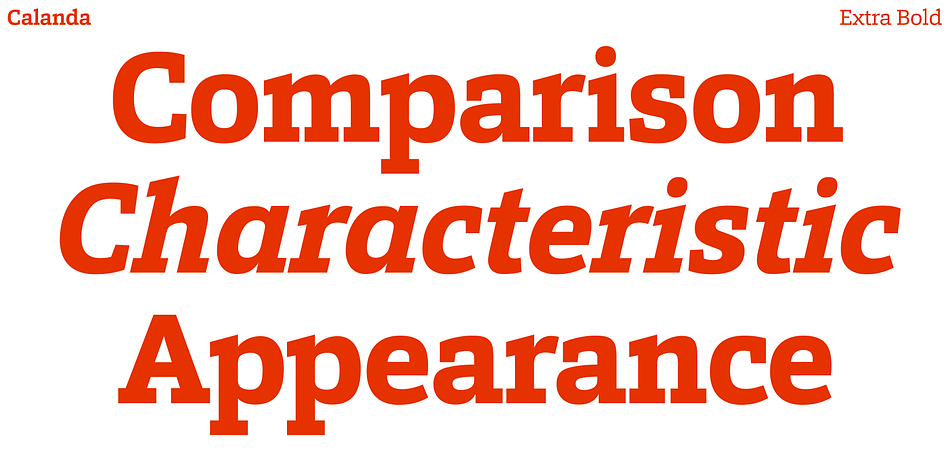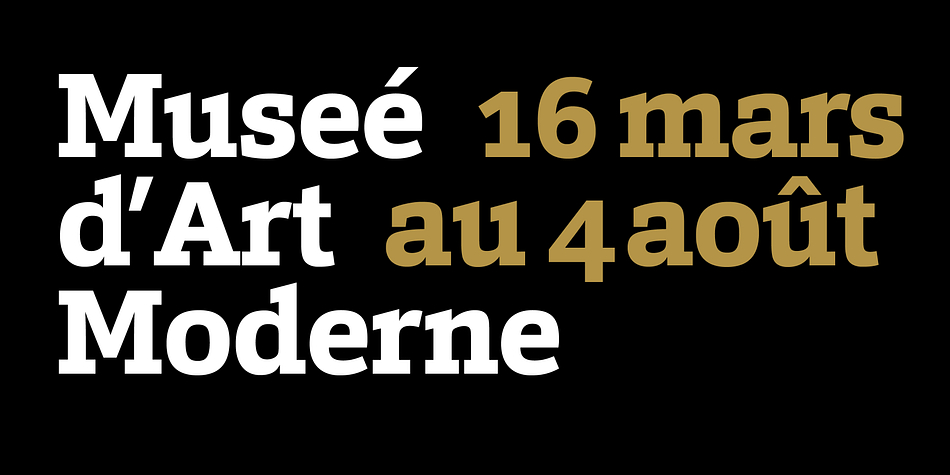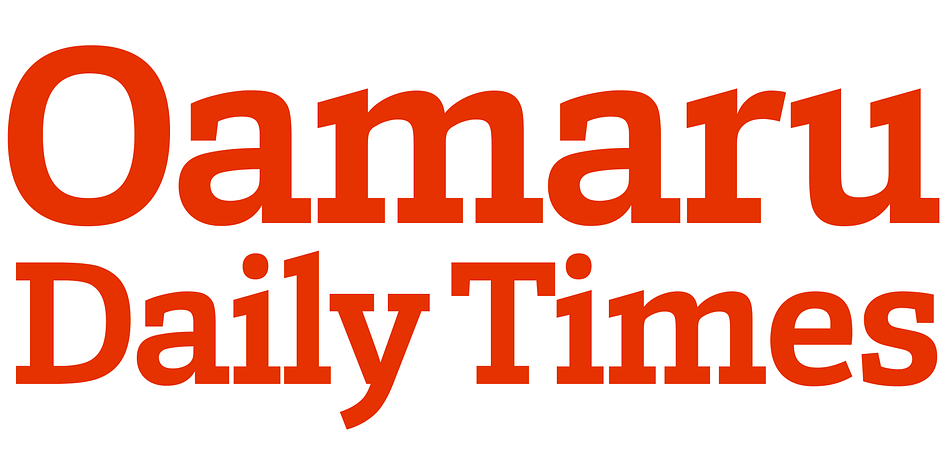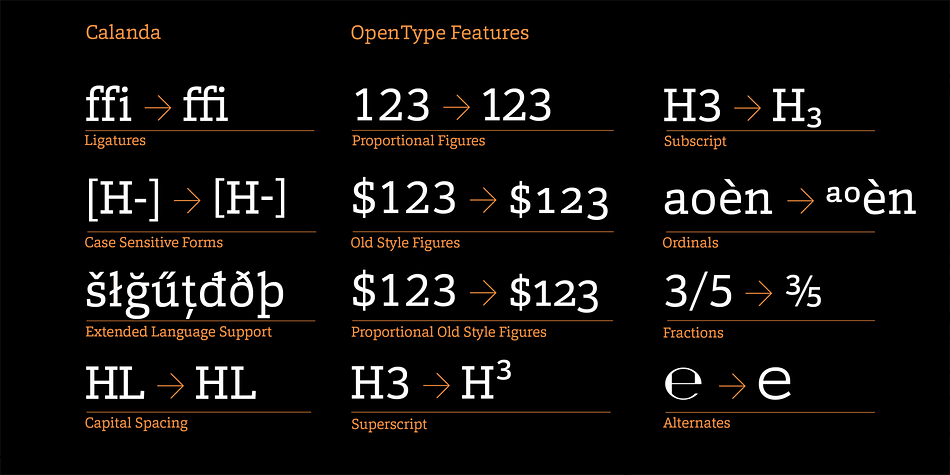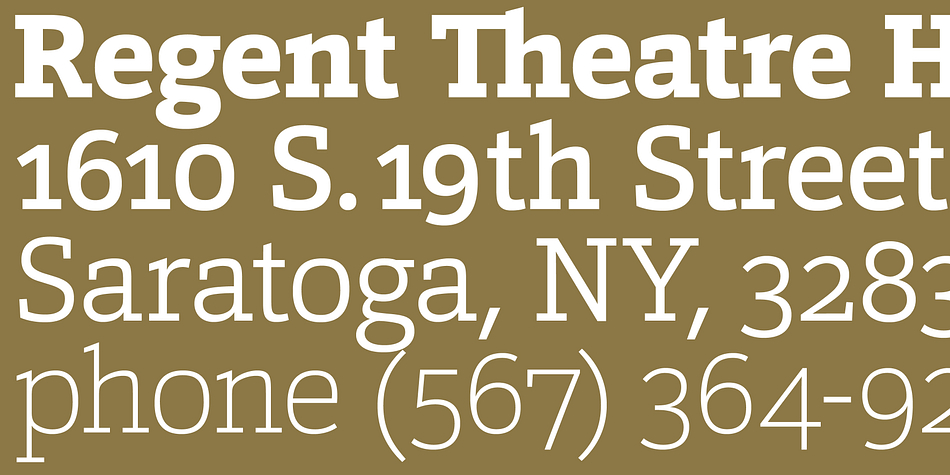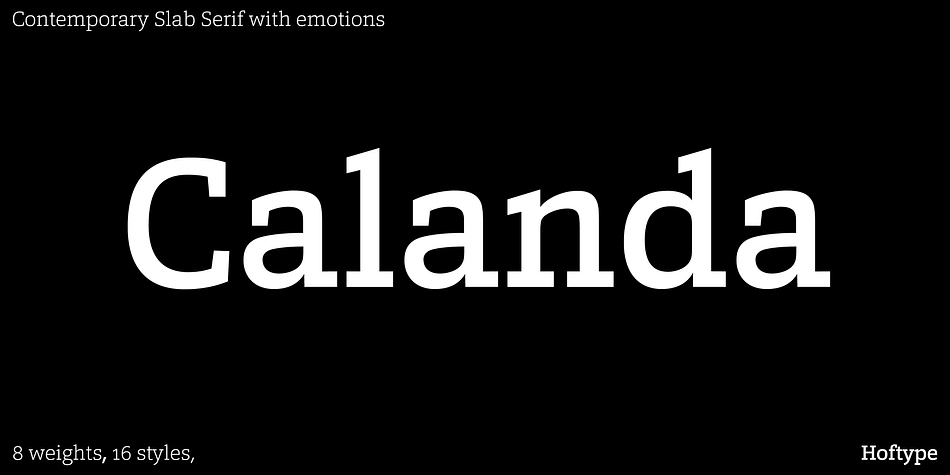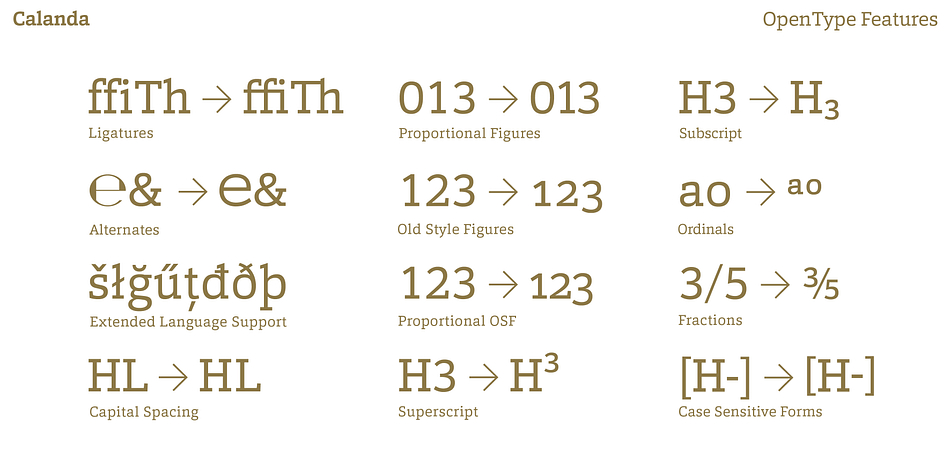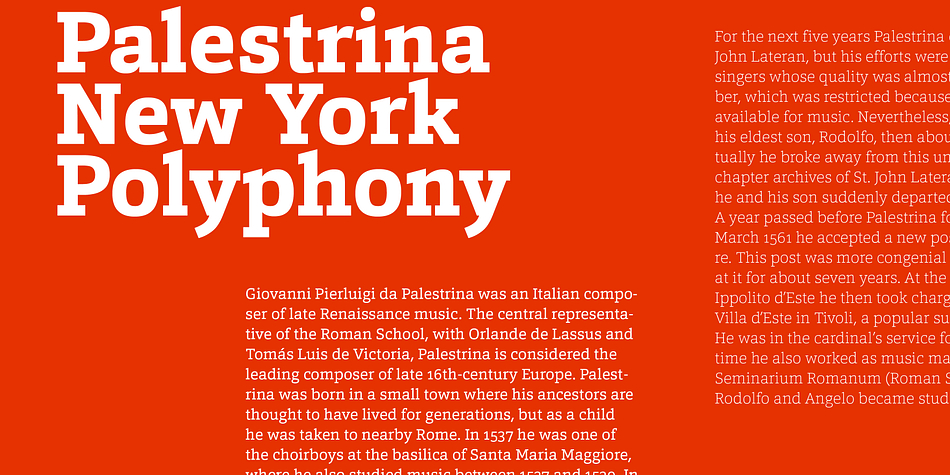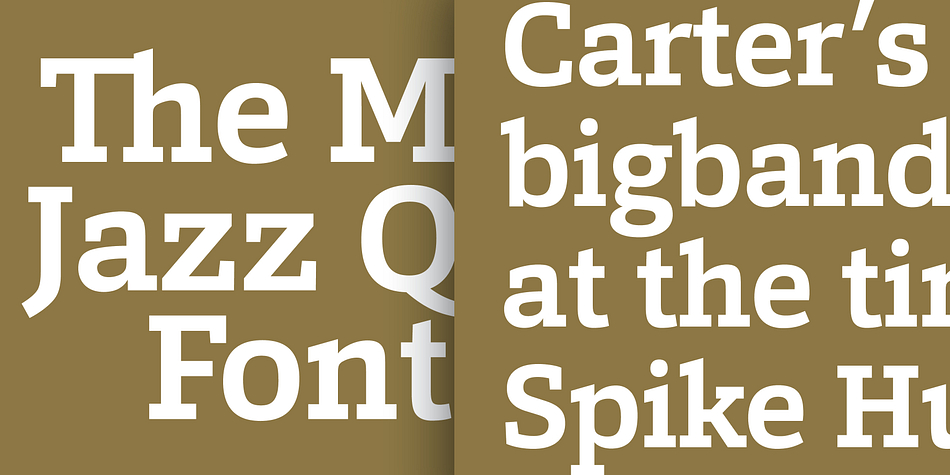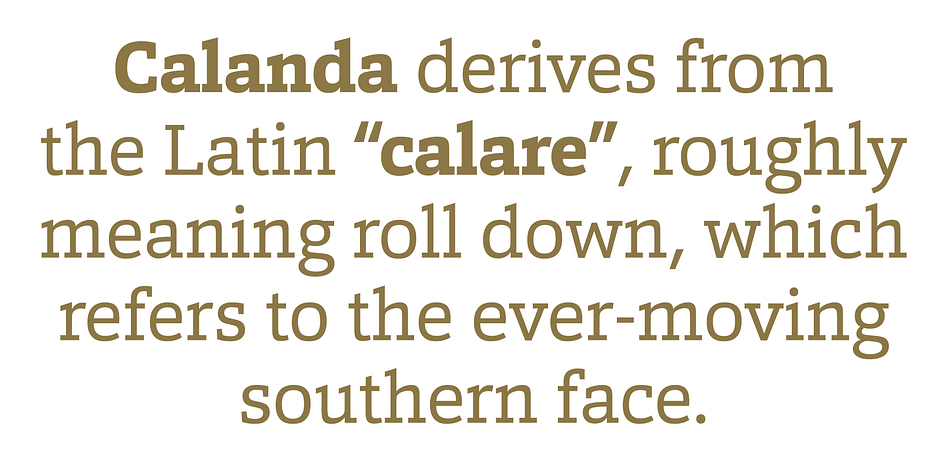
Designed by Dieter Hofrichter, Calanda is a slab serif font family. This typeface has sixteen styles and was published by Hoftype.
Calanda is a forceful, sturdy and dynamic slab serif with distinctly shaped characters.
The Calanda family consists of 16 styles and comes in OpenType format with extended language support. Calanda is very well suited for ambitious typography. All weights contain ligatures, proportional lining figures, tabular lining figures, proportional old style figures, lining old style figures, matching currency symbols, fraction- and scientific numerals and arrows.